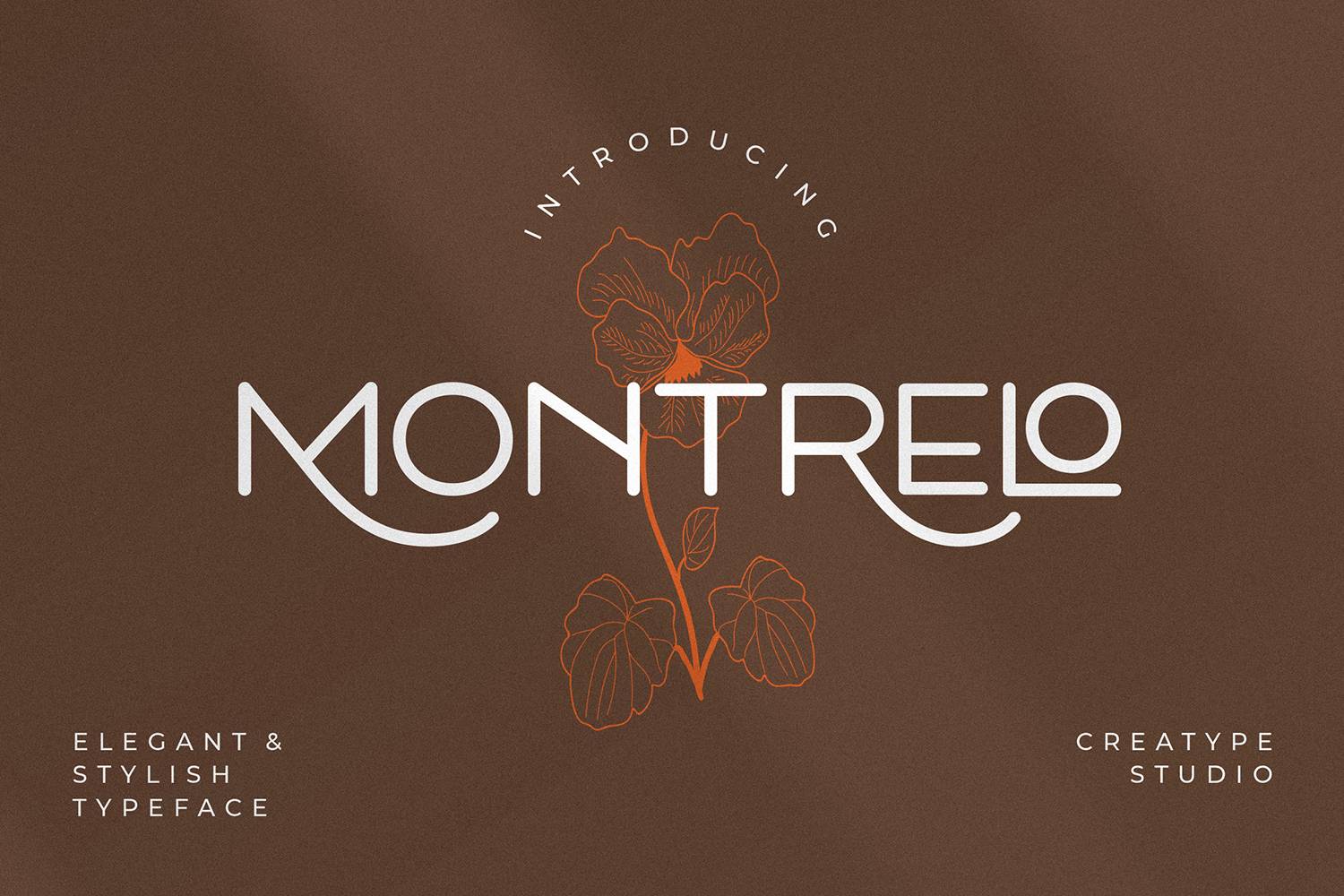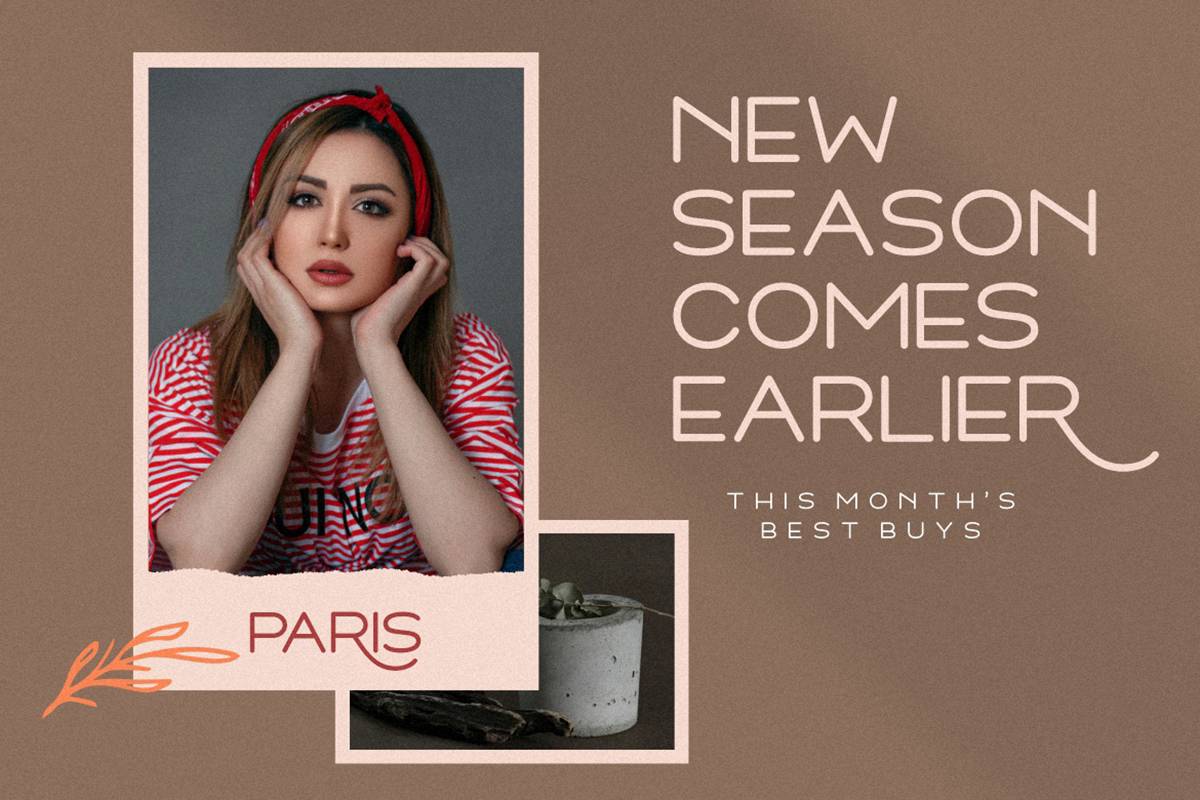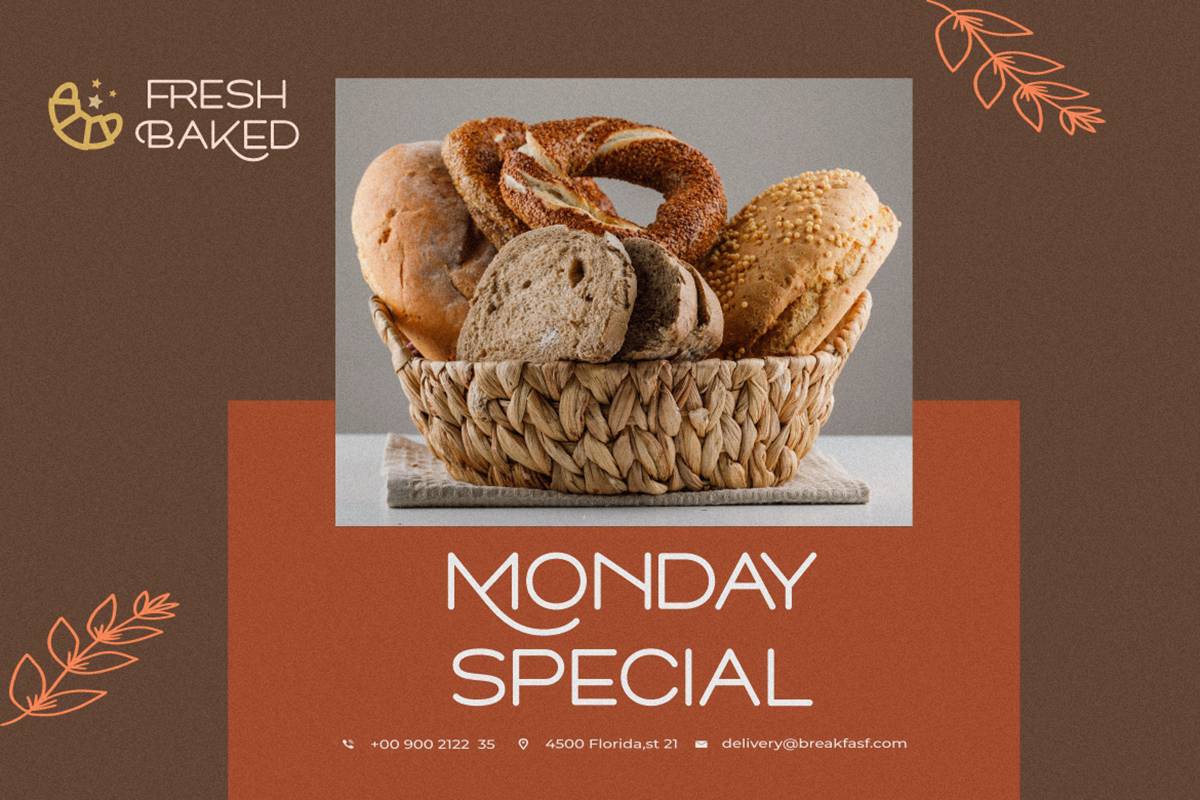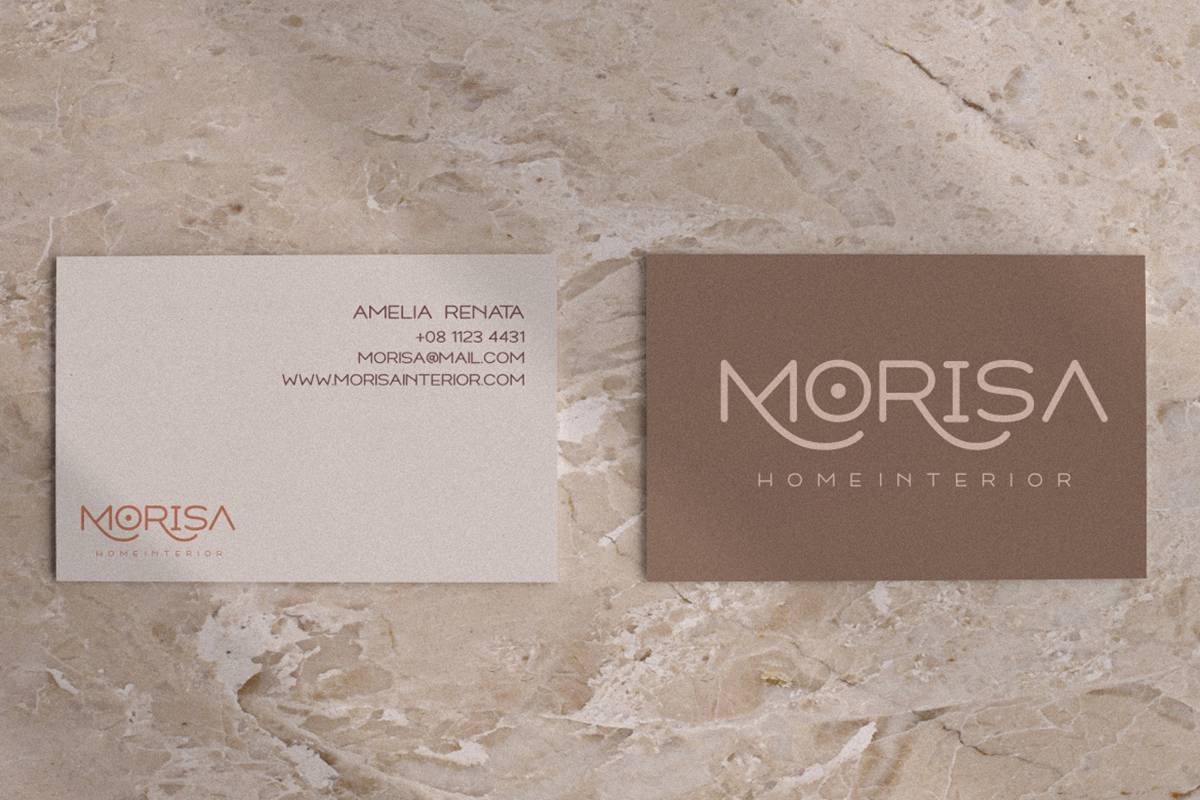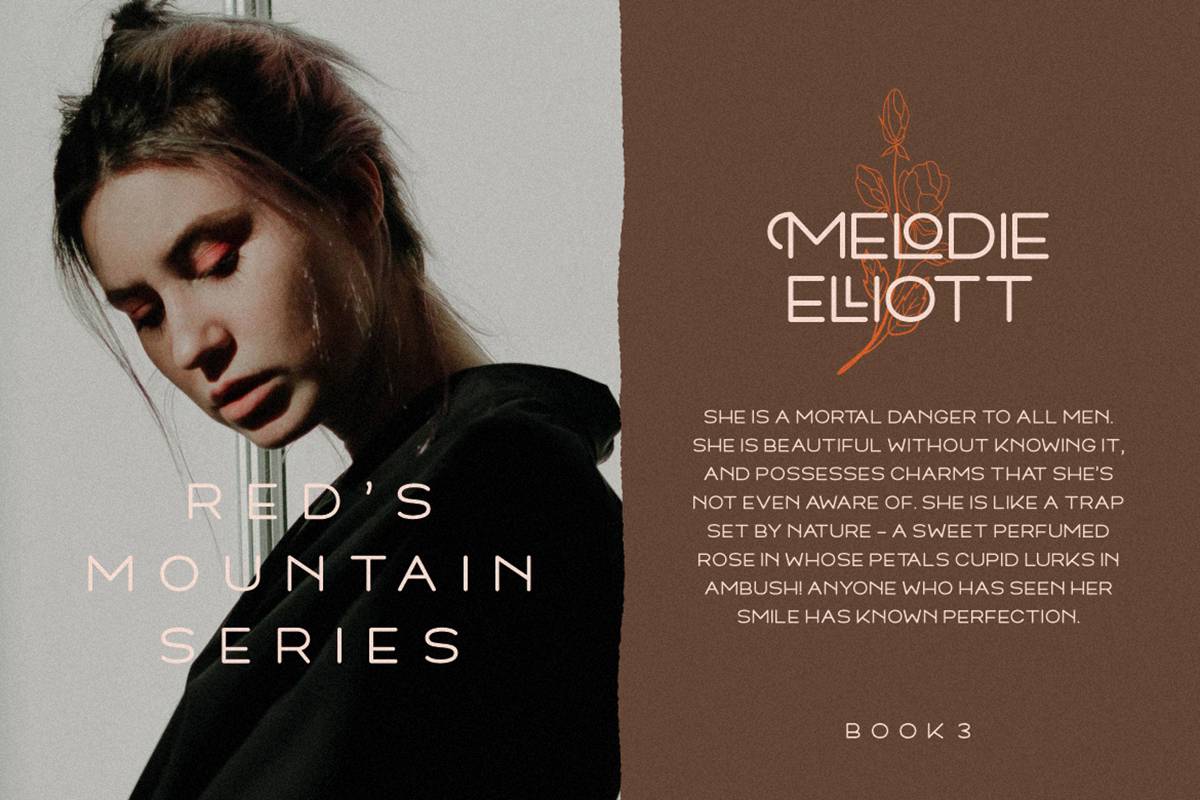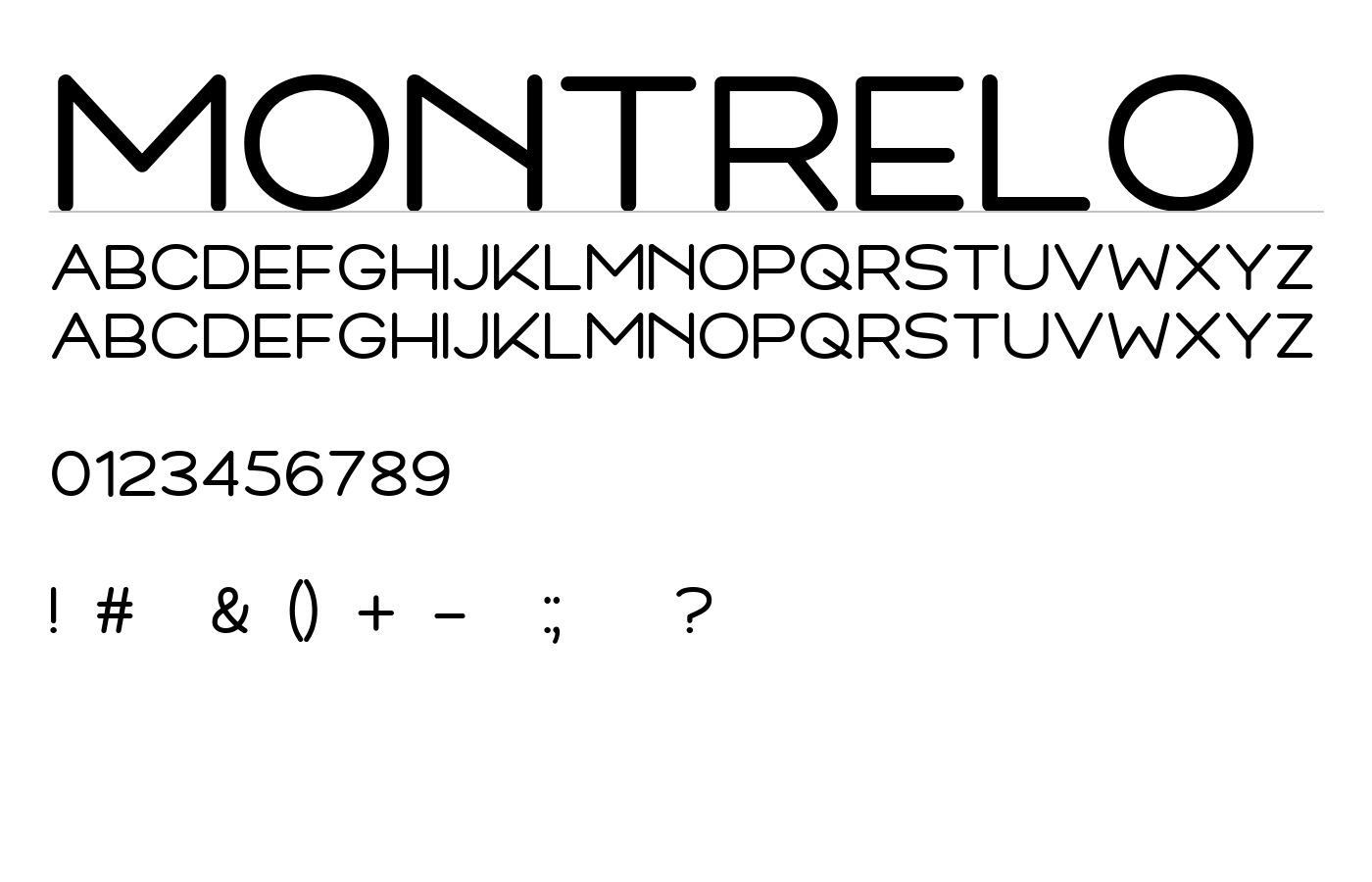
Montrelo is a sleek, modern sans serif font characterized by its clean lines, light weight, and slightly condensed letterforms. With its minimalist geometric shapes and uniform stroke widths, it conveys a contemporary and professional feel, making it ideal for branding, editorial headlines, and digital interfaces where clarity and elegance are key. This font works well for designers seeking a fresh yet refined look that balances simplicity with distinct style.
Montrelo Font
About Montrelo Font